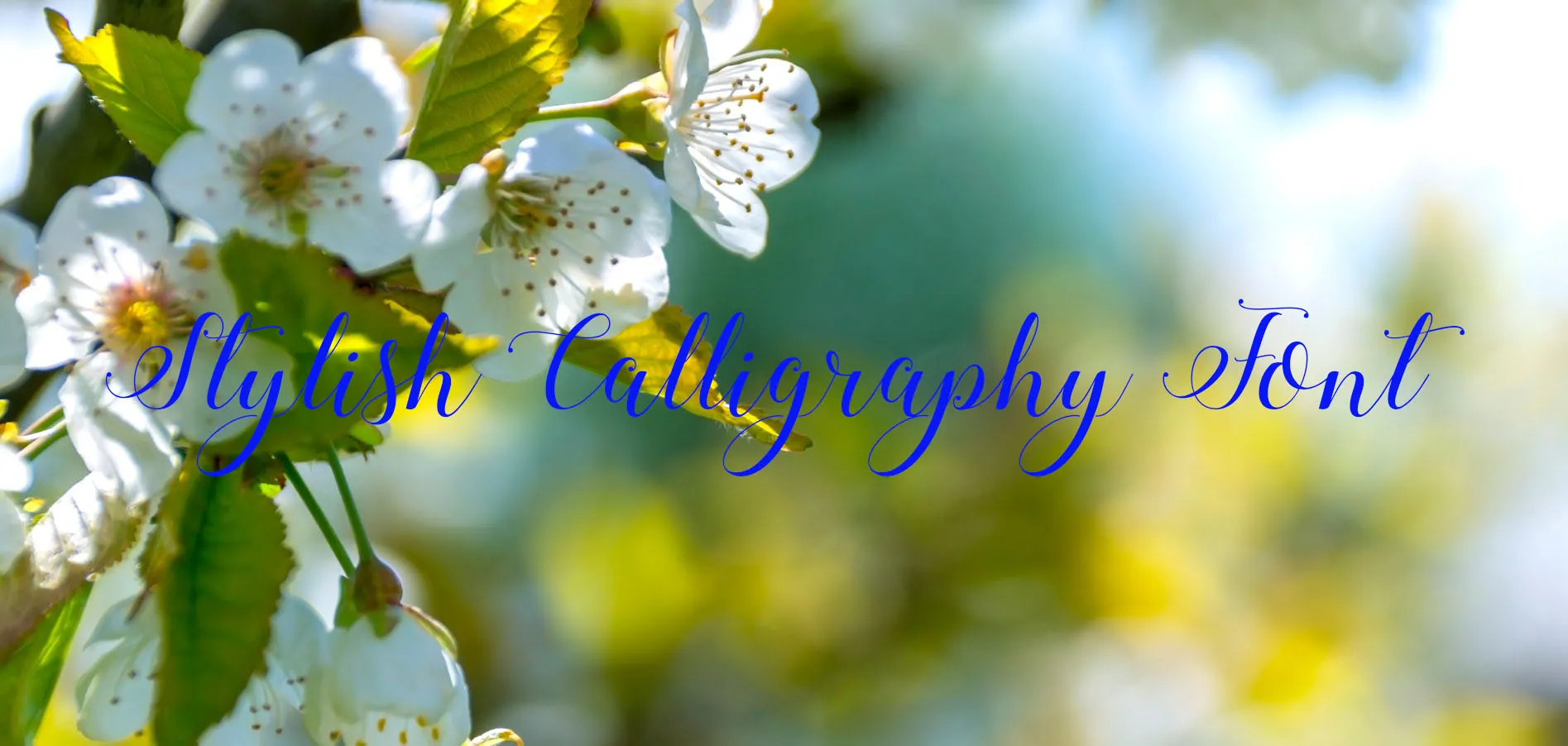
Stylish Calligraphy is a very beautiful and unique font that is known as Stylish Calligraphy Font. Mistis Fonts is the most notable font foundry that is the designer of this elegant font.
This font provides stunning glyphs and 240 calligraphic characters including uppercase, lowercase, general punctuations, icons, numbers, symbols, stylistic alternates, and many other characters. It is available in TrueType and Opentype features.
Stylish Calligraphy Font Family